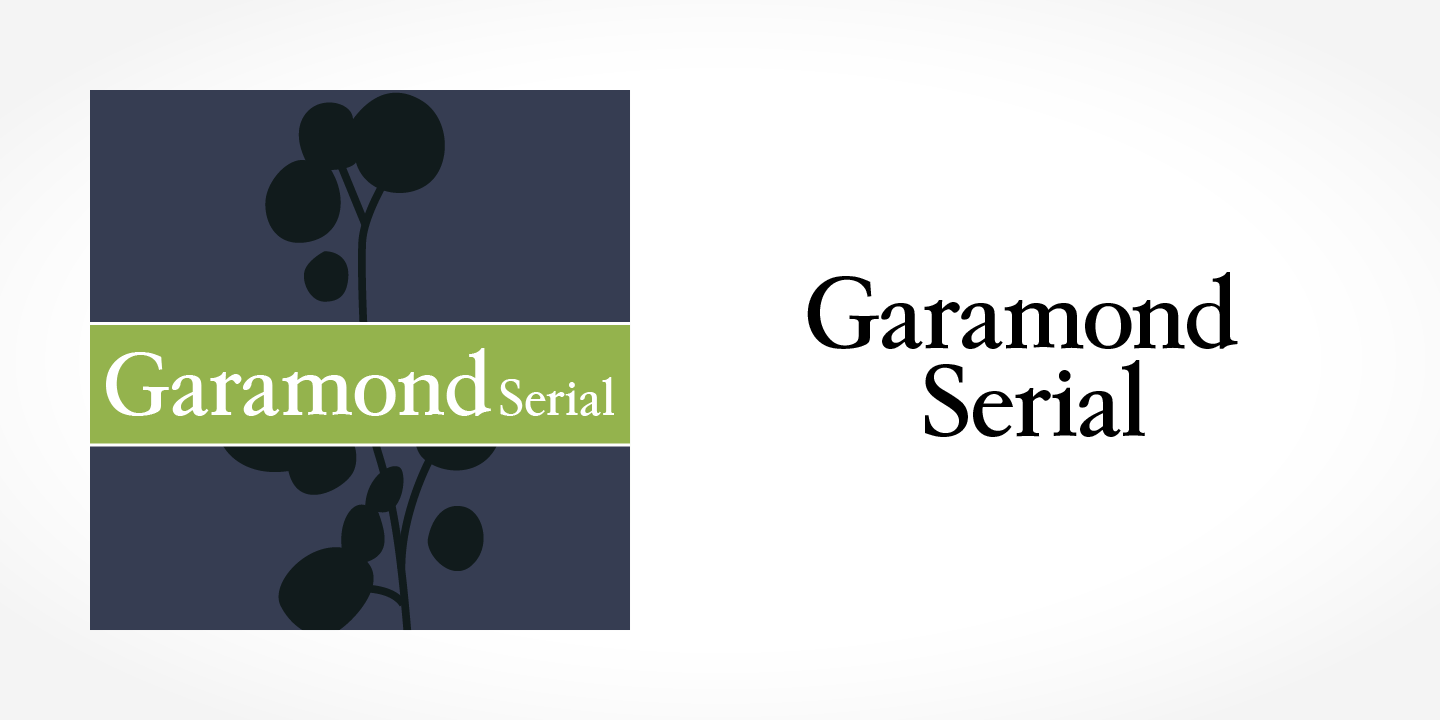
Garamond Serial Font is perfect for academic publishing, scholarly journal layouts, literary magazine designs, university press materials, classical book reproductions, and distinguished educational communications. Its scholarly character makes it ideal for academic institutions, university presses, scholarly publishers, research organizations, and any application requiring timeless typography that conveys academic excellence, scholarly authority, and the intellectual tradition of classical typography and Renaissance printing heritage.
Garamond Serial Font is exciting because it preserves the legendary elegance and scholarly distinction of Claude Garamond's masterful typographic legacy through systematically refined letterforms that embody centuries of academic publishing excellence. Its classical proportions and Renaissance-inspired details reflect the enduring wisdom of scholarly tradition and the intellectual sophistication that defines quality academic communication, making it perfect for institutions dedicated to knowledge preservation and scholarly excellence. The font's academic character transforms communications into expressions of intellectual authority.
Garamond Serial Font family includes academically-refined weight variations typically featuring Light, Regular, Medium, Semibold, and Bold options with classical styling that maintains scholarly authenticity. The family often incorporates academic symbols, scholarly ornaments, and educational elements designed for professional publishing applications, providing designers with comprehensive tools for creating authentic, academic-focused typographic compositions.